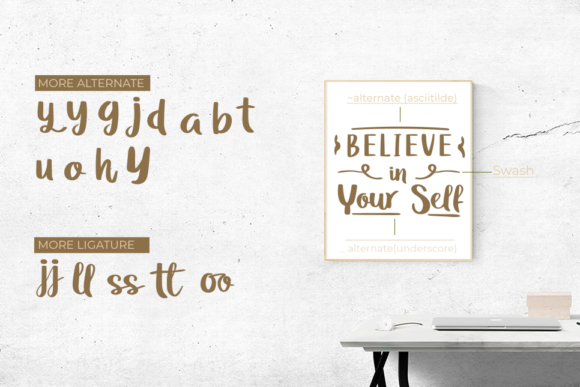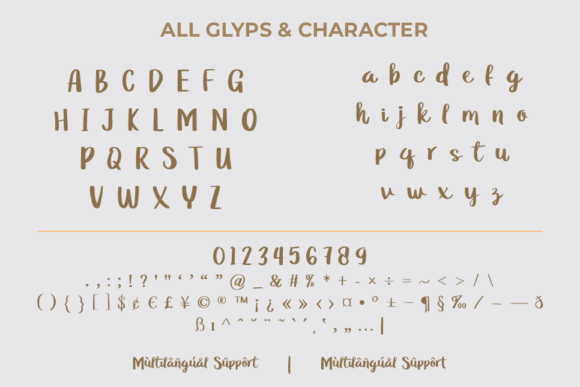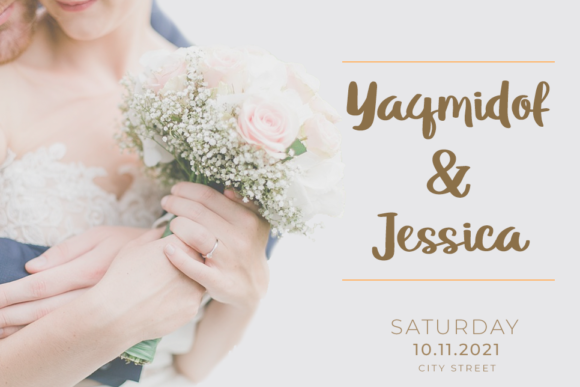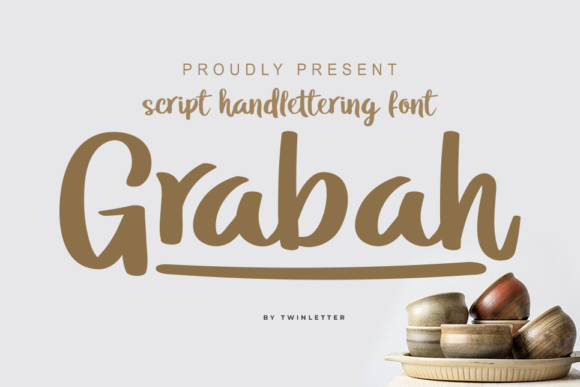
Introduction to Grabah Font
Grabah features an elegant and friendly style.
Use this beautiful handwritten font to elevate a wide range of design projects to the highest level, be it branding, headings, wedding designs, invitations, signatures, logos, labels, and much more .
Grabah Font offers exceptional quality and versatility, making it a valuable addition to your design toolkit. Whether you’re creating for personal projects or commercial use, Grabah Font delivers professional results.